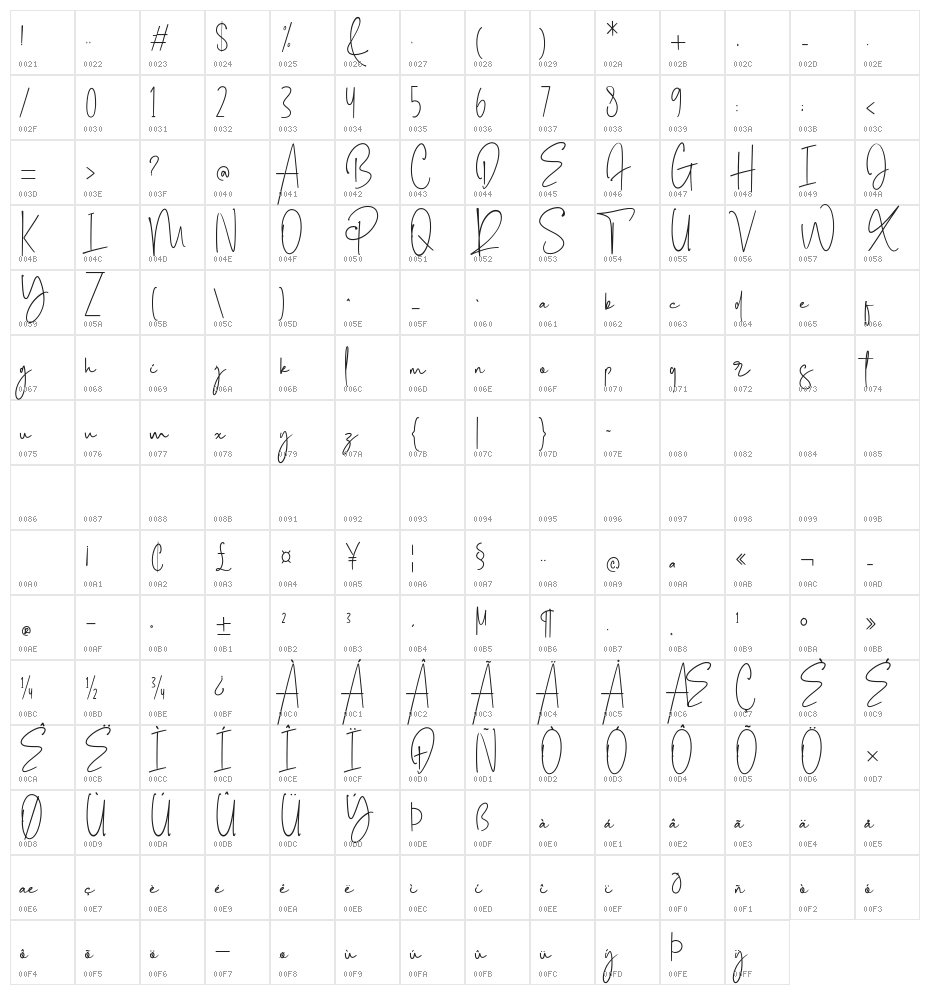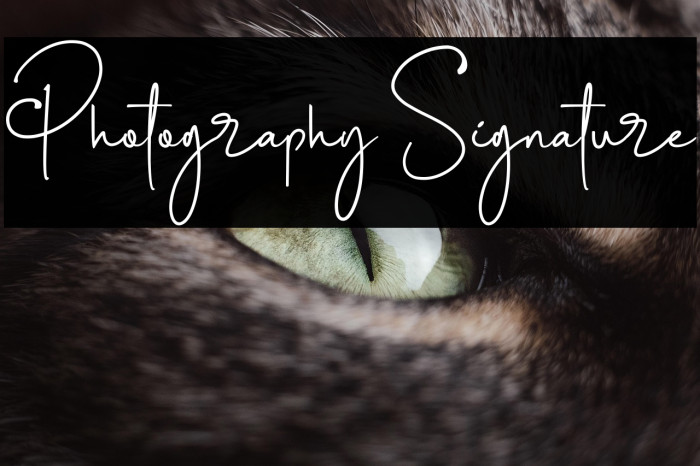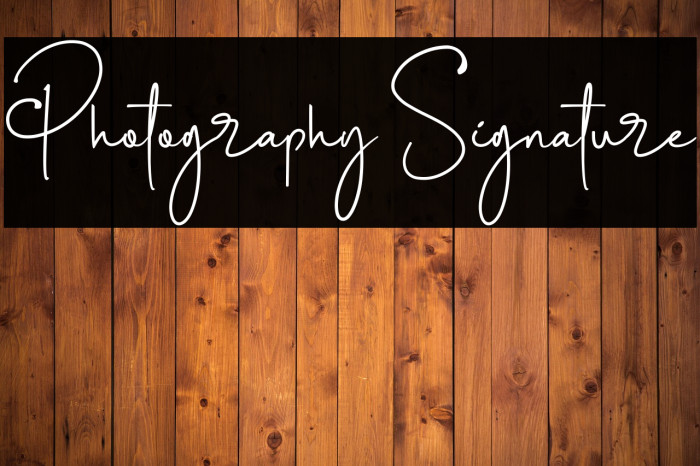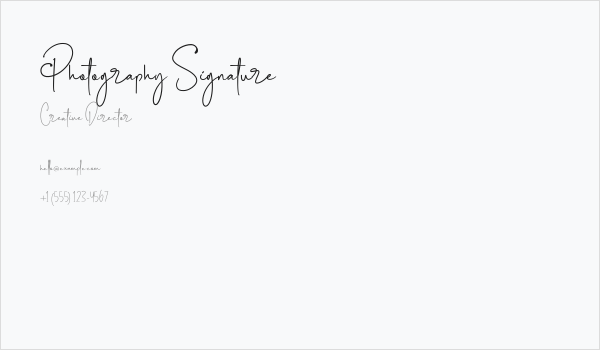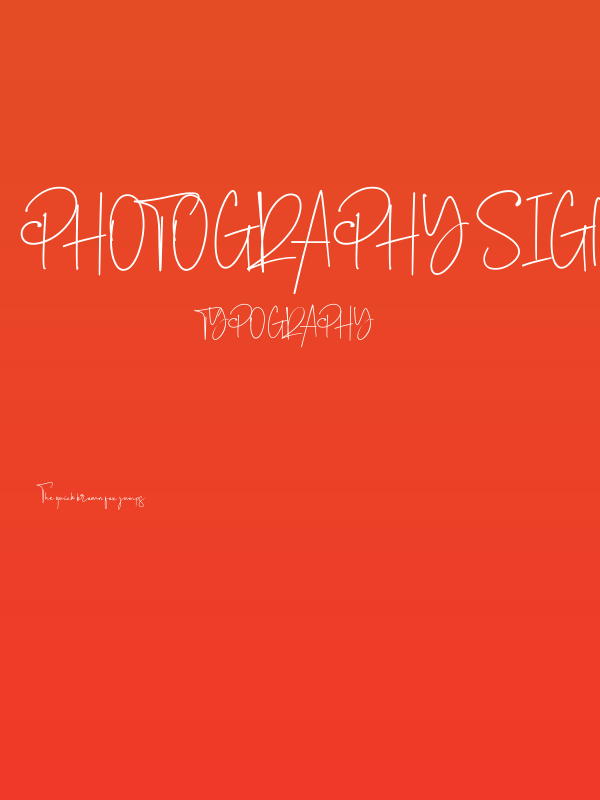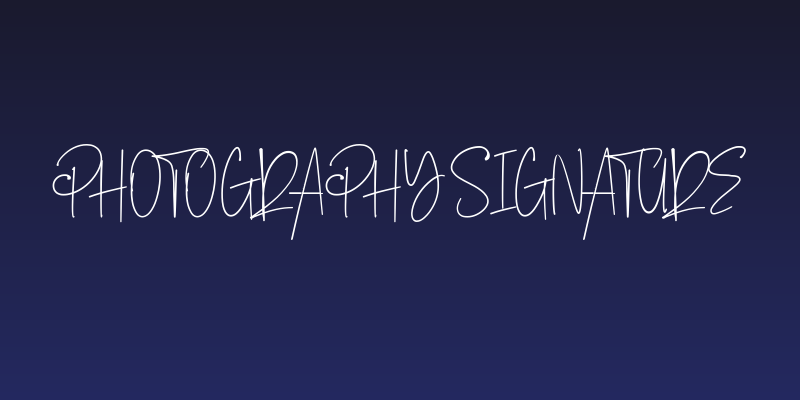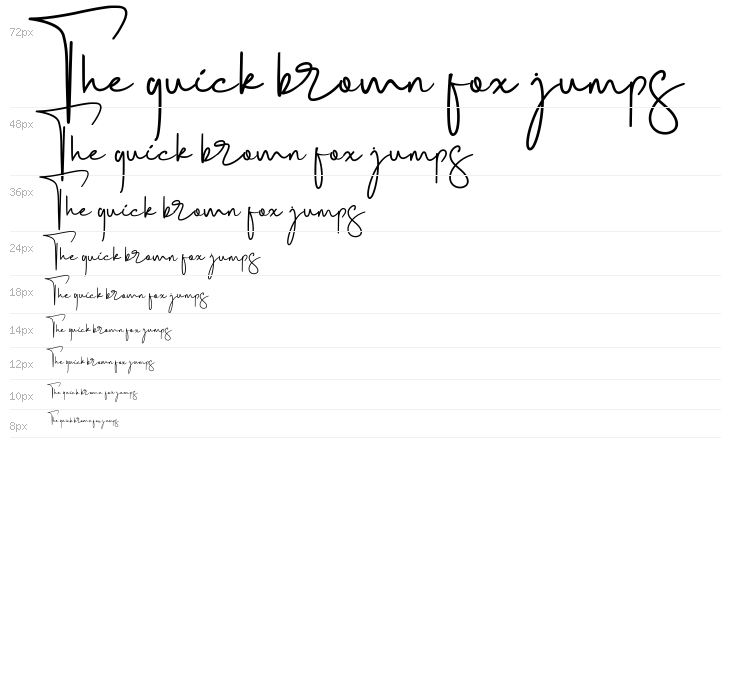
Photography Signature Font
Photography Signature Description
This font features a distinctive handwritten style with a modern flair, characterized by its fluid and elegant strokes. The uppercase letters are tall and narrow, with a playful yet sophisticated appearance. The lowercase letters maintain a consistent flow, enhancing the script-like quality. Numbers are clear and legible, while special characters are creatively integrated, adding to the font's versatility. The overall design exudes a sense of personal touch, making it ideal for projects that require a signature or artistic feel.
| Use Case | Logos, Signatures, Artistic projects |
| Proposed Projects | Ideal for photography watermarks, personal branding, invitations, and artistic projects. |